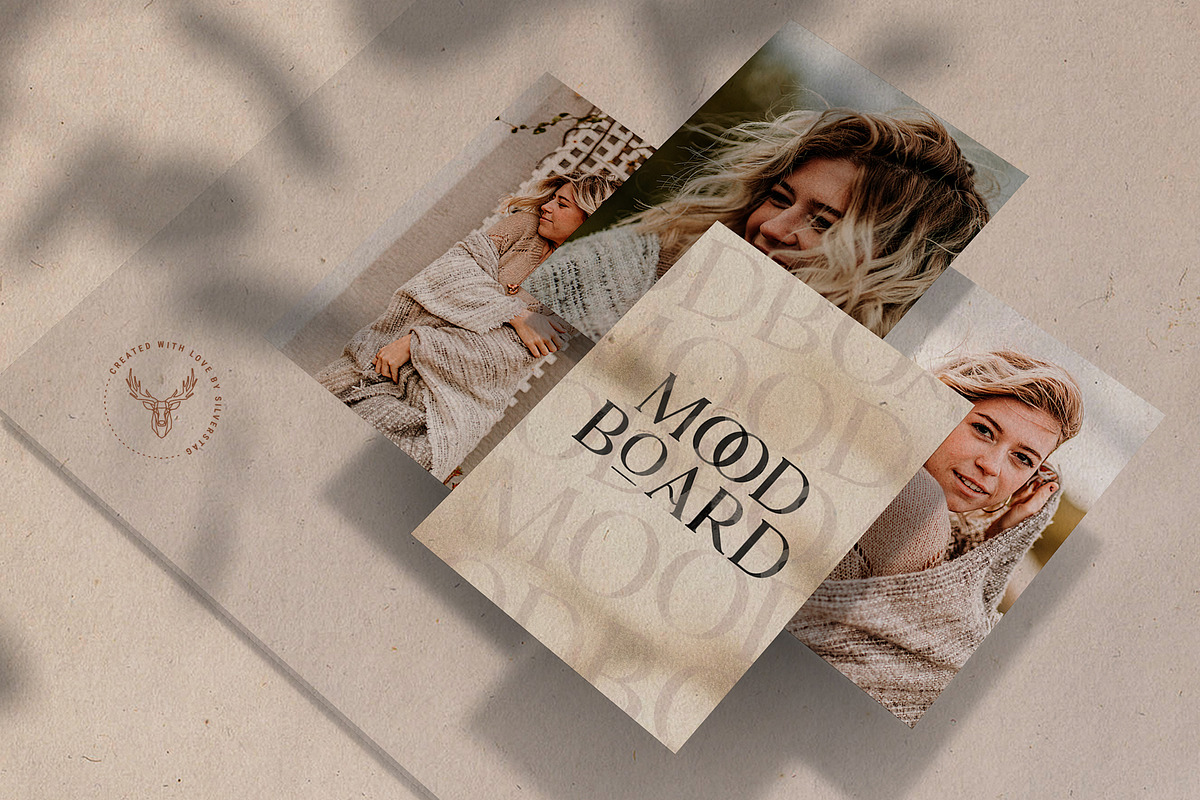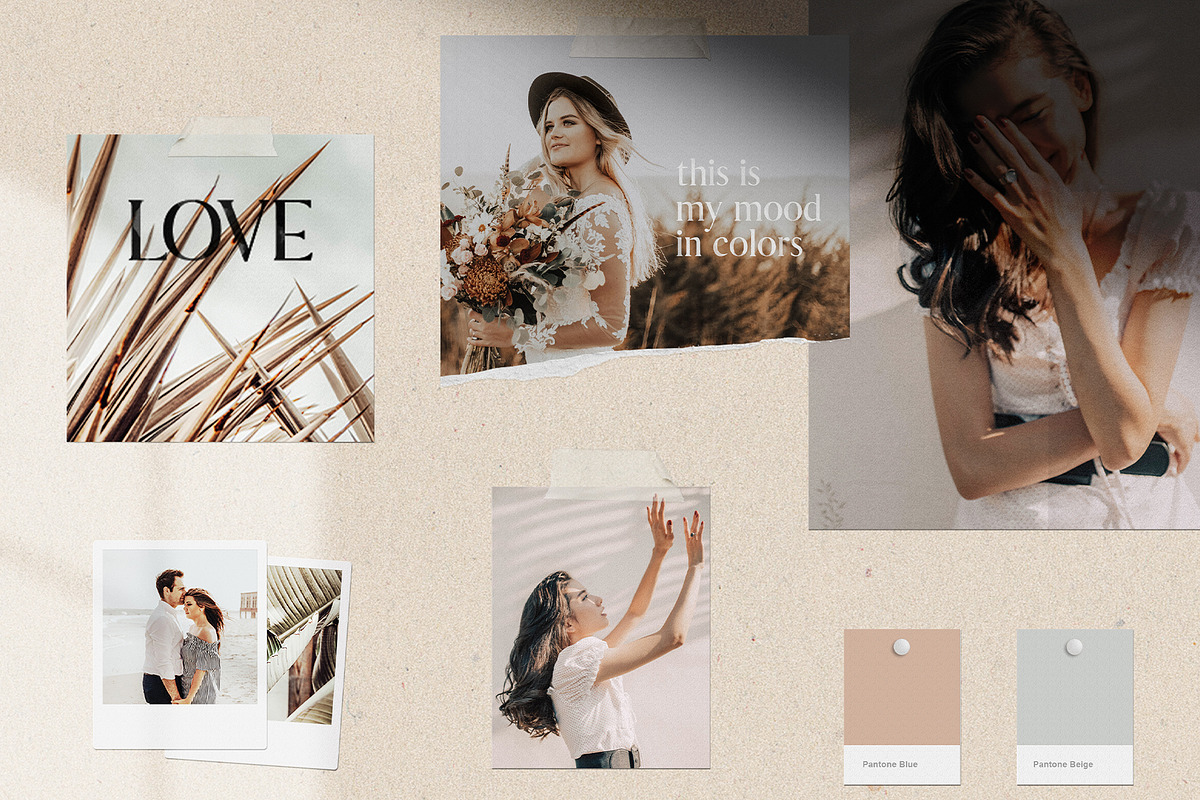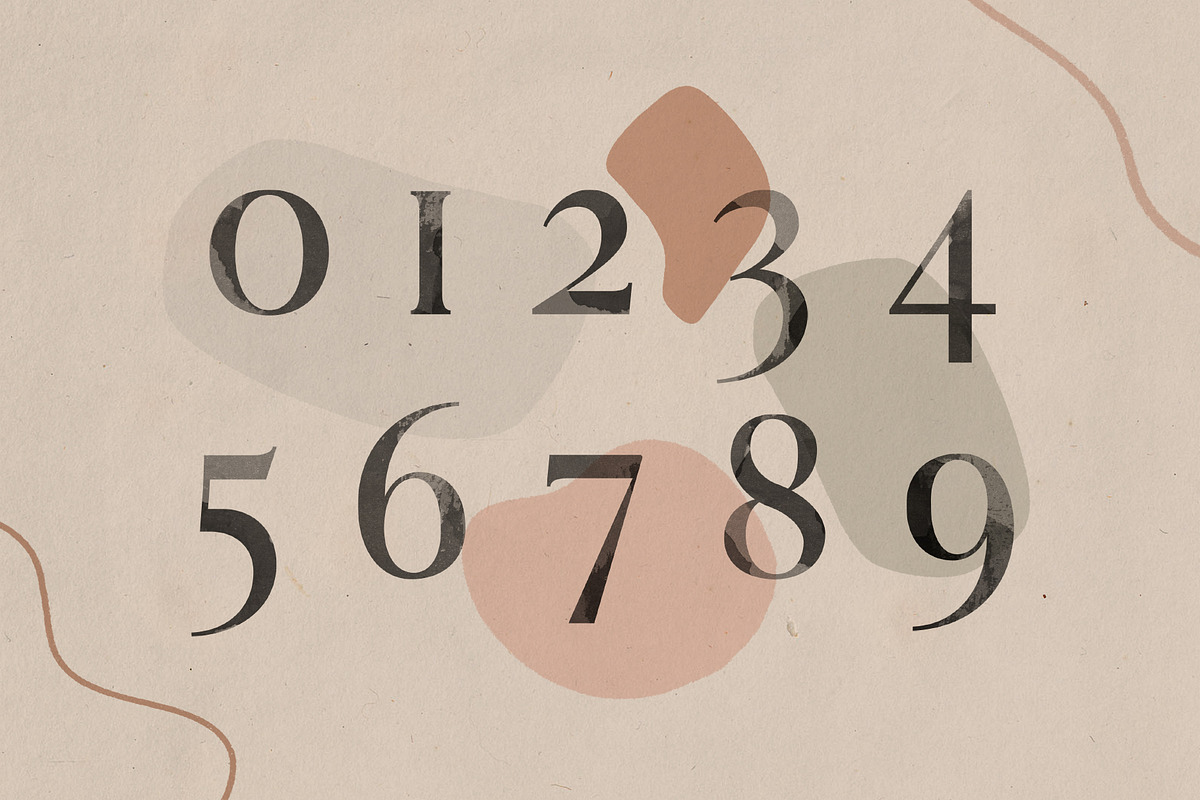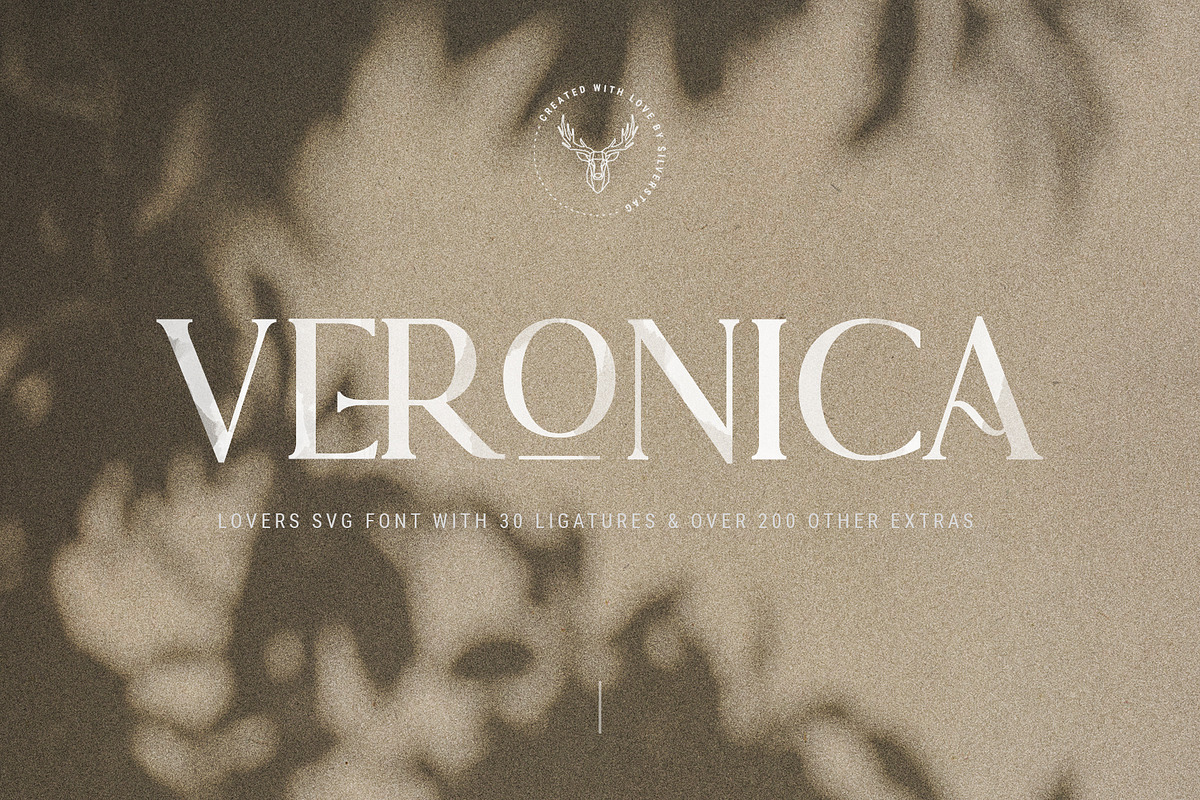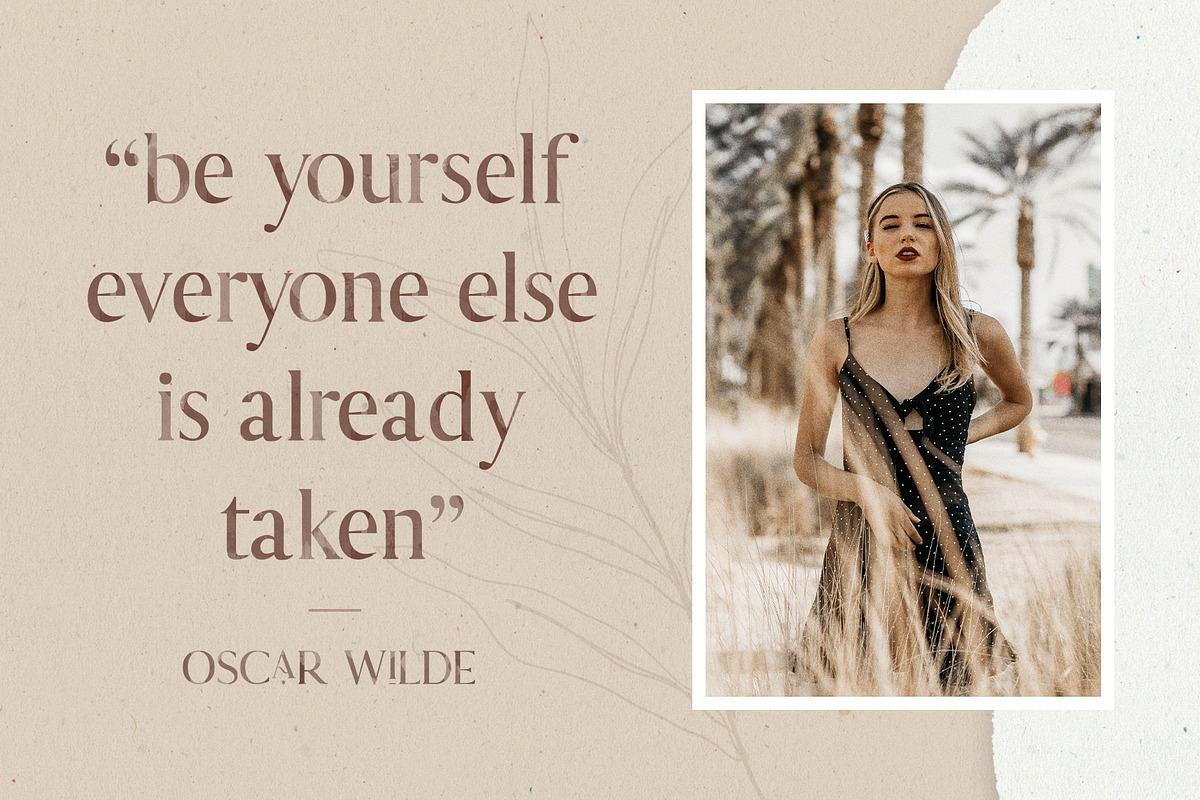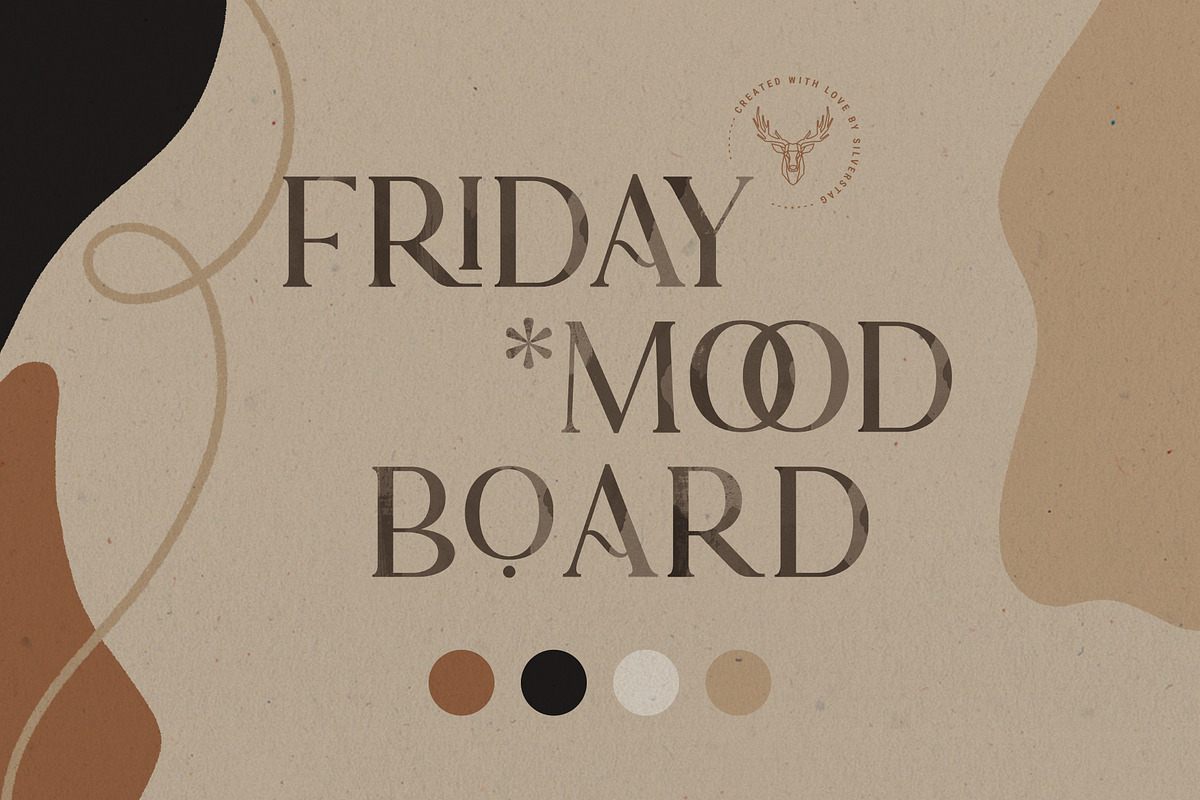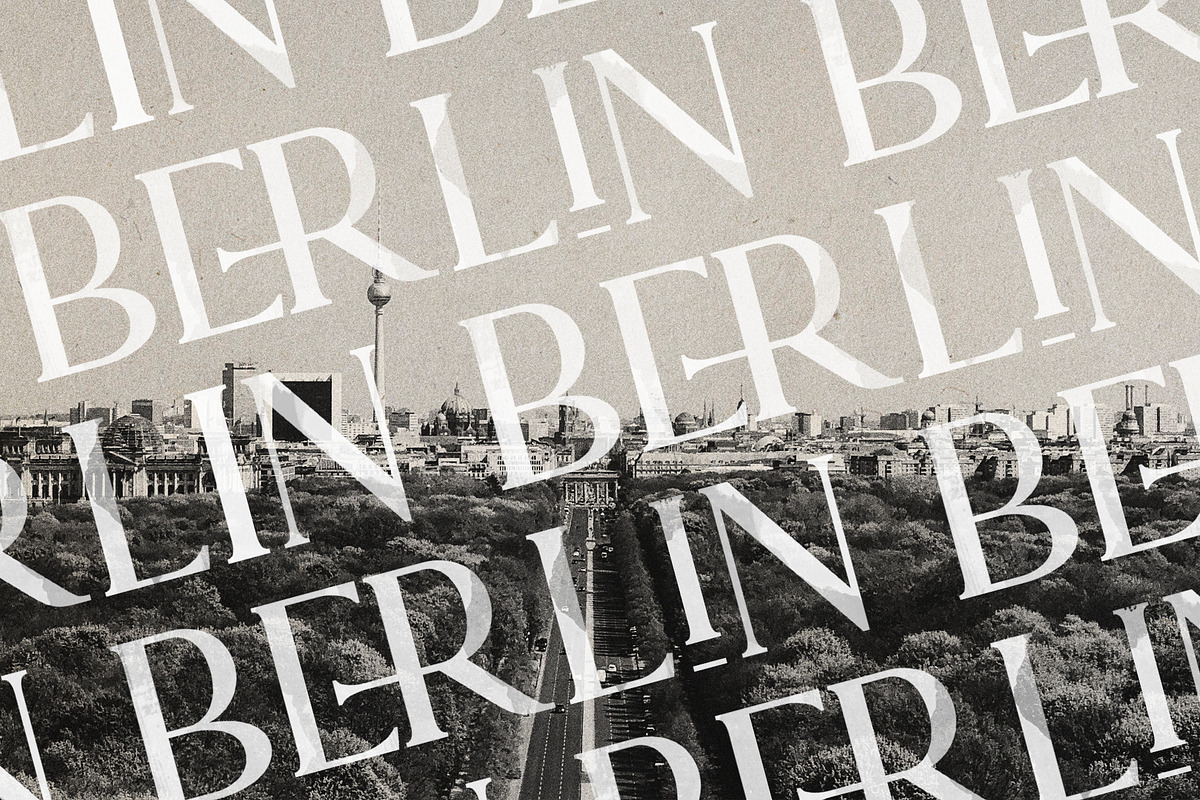
Lovers SVG Serif Font & Extras
After making a couple of hand drawn elegant calligraphy SVG fonts and some standard fonts like Maria Rose and Verona Amore Font Duo, I decided it's time to make a SVG Serif font for all of you who need a true watercolor effect on your fonts, but also work in industries where elegance and serif fonts are a must. And after almost 2 months of work LOVERS SVG Watercolor font is ready for all of you.
I have included a lot of features and elements; ligatures, alternate letters, regular version, over 200 hand drawn graphics, foliage, lines that you can use to make unique designs for yourself or your clients. Also, as a great bonus I have included 29 premade Instagram story backgrounds and 5 compositions/posters you can easily print and put on your wall. Check out all the screenshots above to see what you'll get with this amazing font!